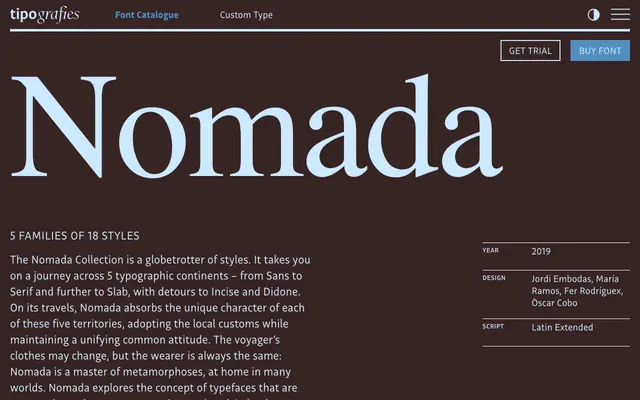
Nomada
Tipografies · Jordi Embodas, María Ramos, Fer Rodríguex, Òscar Cobo · 2019
A five-family type system by four Tipografies designers, spanning Incise, Sans, Serif, Slab and Didone styles with shared contemporary proportions and open counters.
Released in 2019 by Jordi Embodas, María Ramos, Fer Rodríguex and Òscar Cobo, Nomada unites five formally distinct subfamilies under a single design attitude, allowing switches between incise, grotesque, serifed, slab and high-contrast Didone styles without losing visual coherence. Each subfamily runs across nine weights from Hairline to Extrablack with matching italics, giving 18 styles per family. Open counters and apertures are consistent across all five, making the system equally at home in print and on screen.
Nomada is a five-family collection spanning Incise, Sans, Serif, Slab and Didone styles, making it a multi-style system rather than a single category. The page being scraped is for the Incise subfamily, which features chiselled letterforms with engraved stroke endings characteristic of incise type.